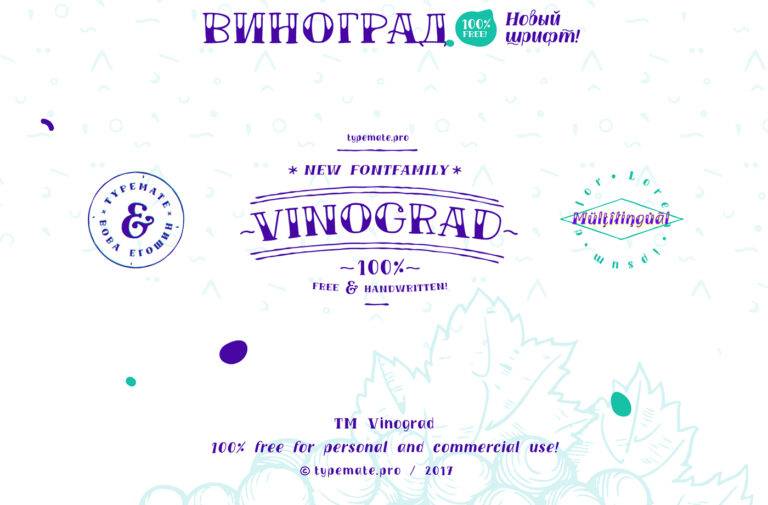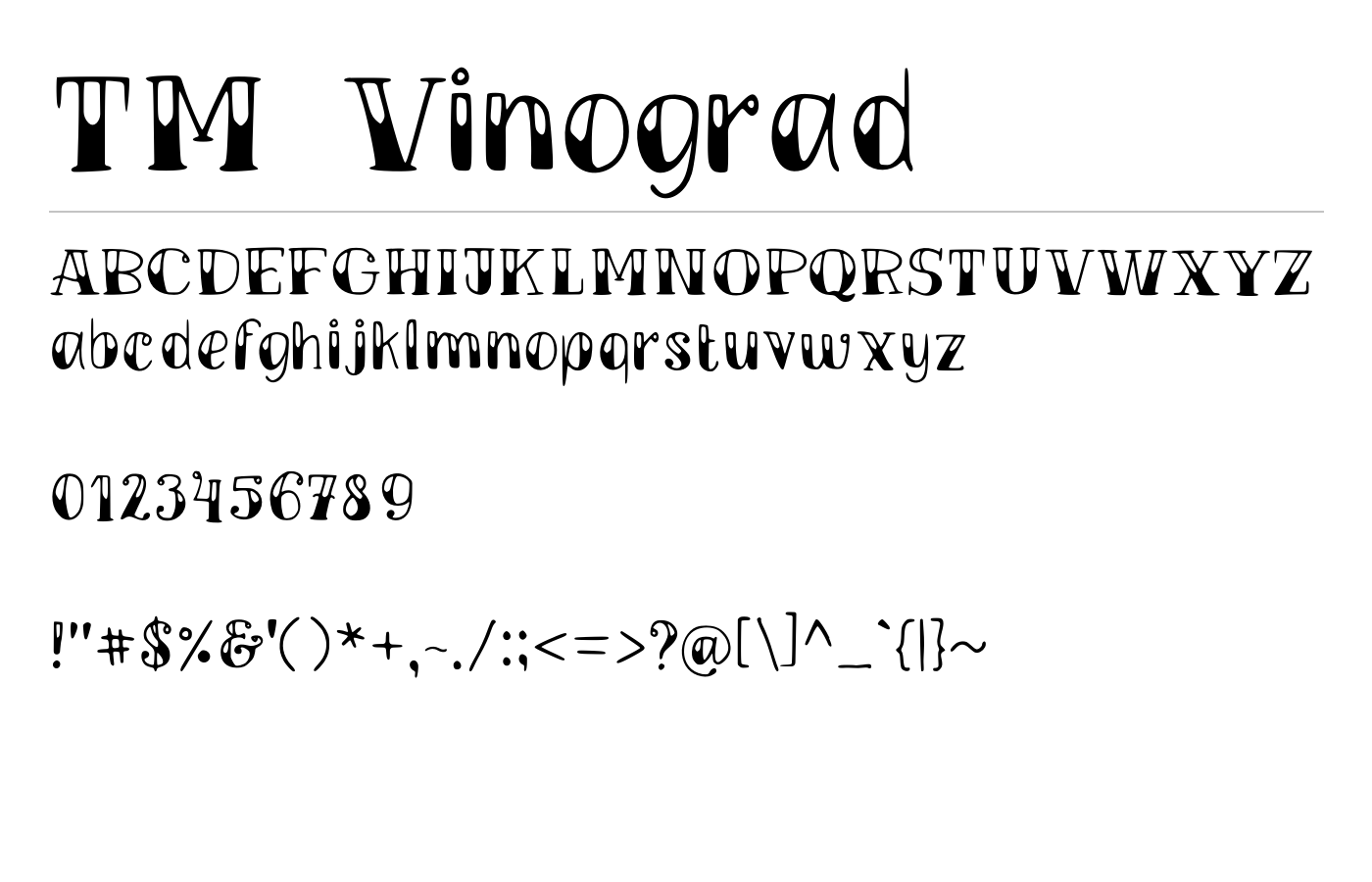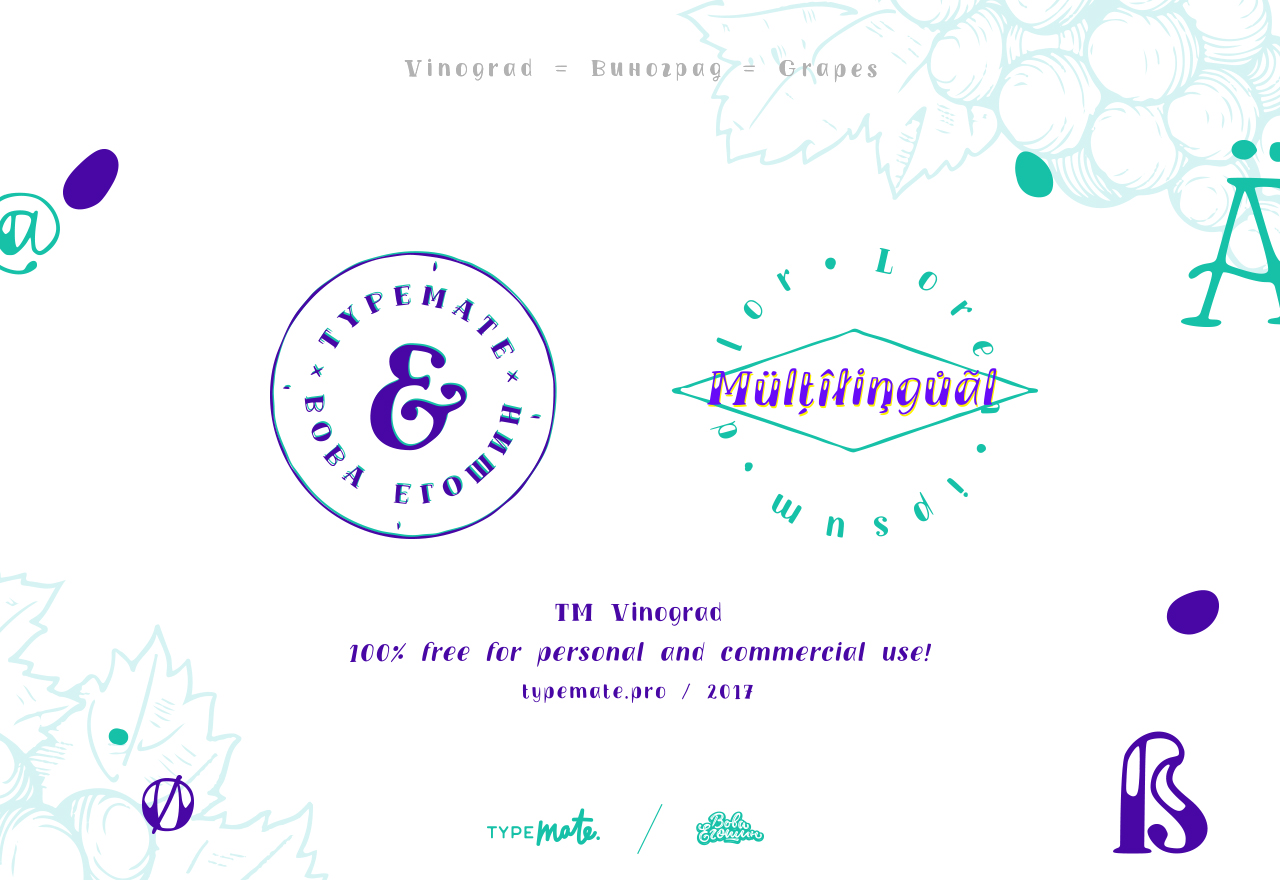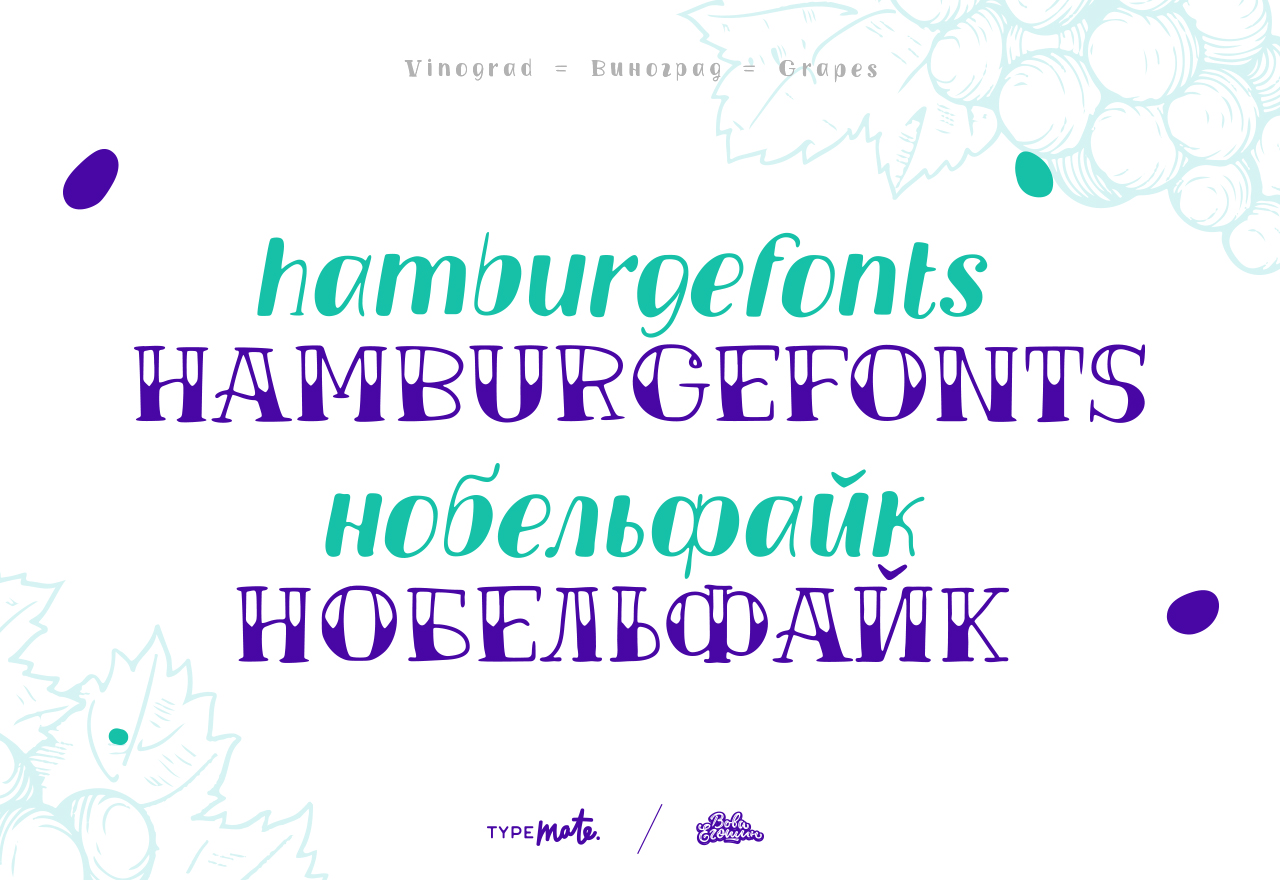
Vinograd is a playful serif font with a distinct vintage charm, featuring high contrast between thick and thin strokes and quirky, irregular shapes that give it a lively, hand-crafted feel. Its unique letterforms and decorative details make it perfect for creative projects like posters, logos, and packaging where a touch of personality and elegance is desired. This font works especially well in display settings, adding character and warmth to any design.
Vinograd
About Vinograd
| Font family | Vinograd |
| Languages supported | Latin, Greek, Cyrillic, Symbols |
| Designer | Vova Egoshin / Typemate |